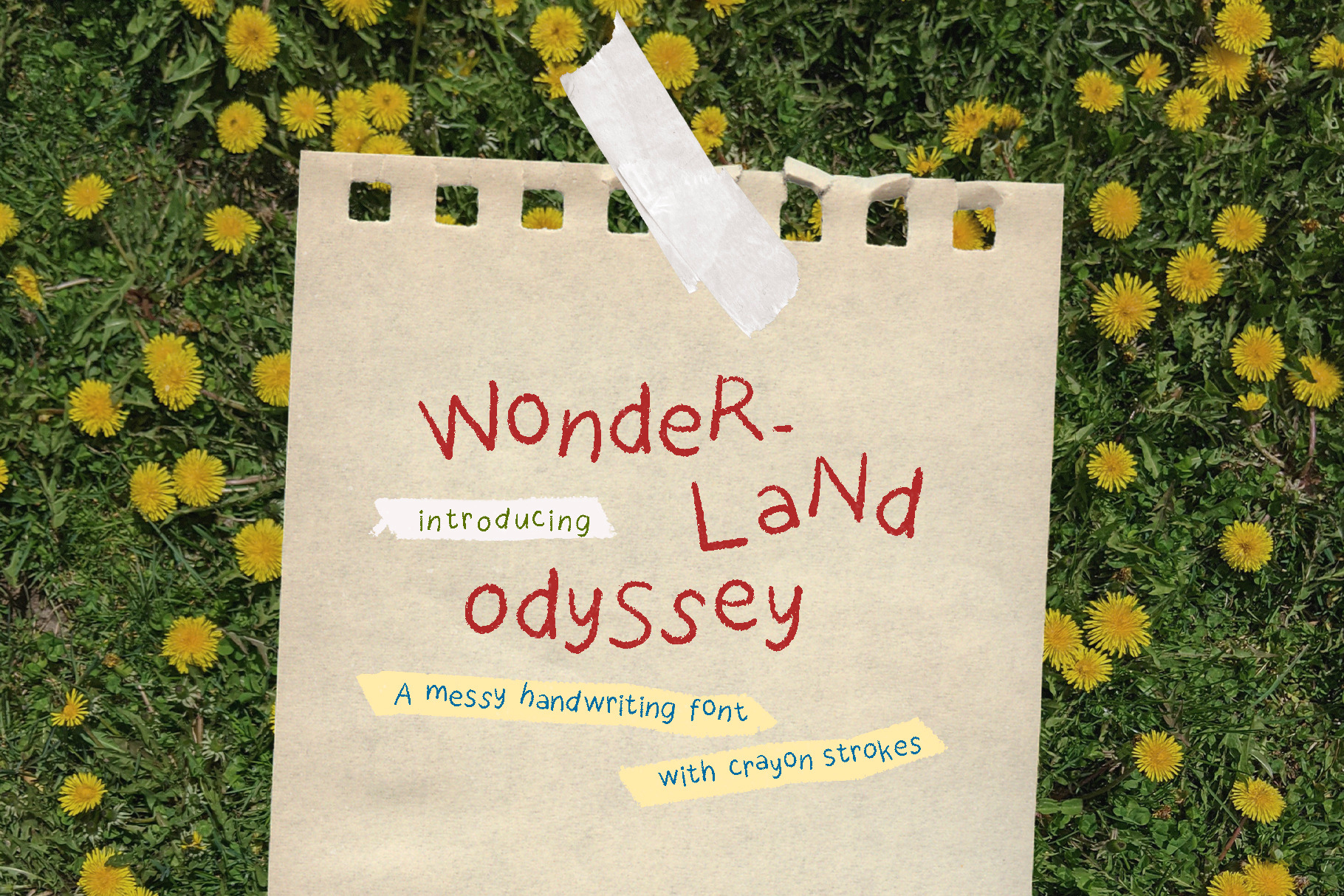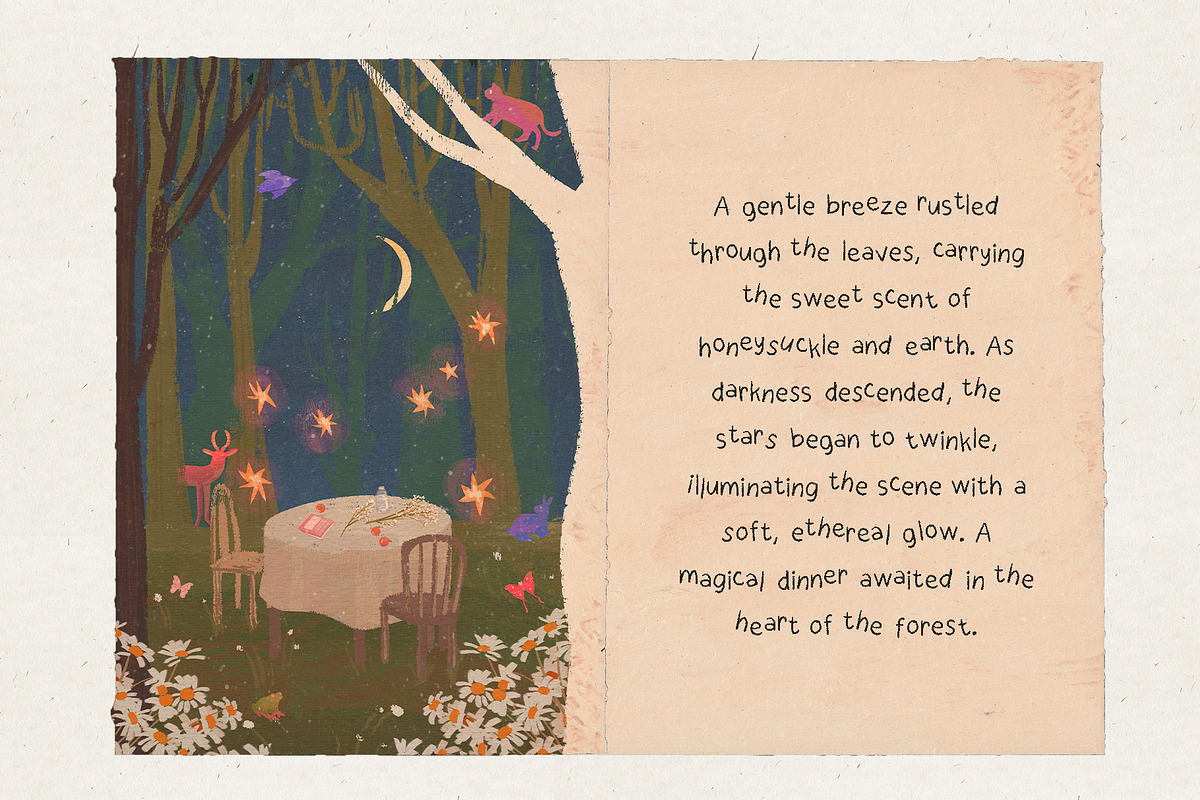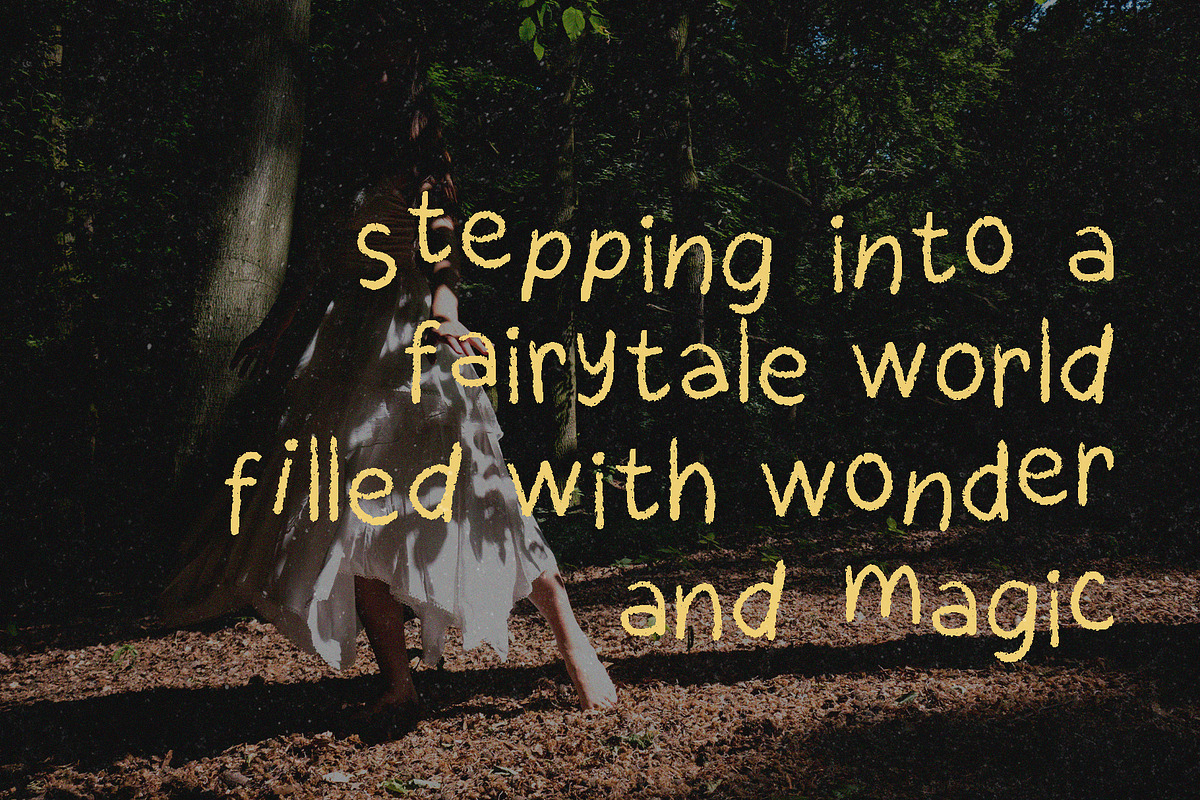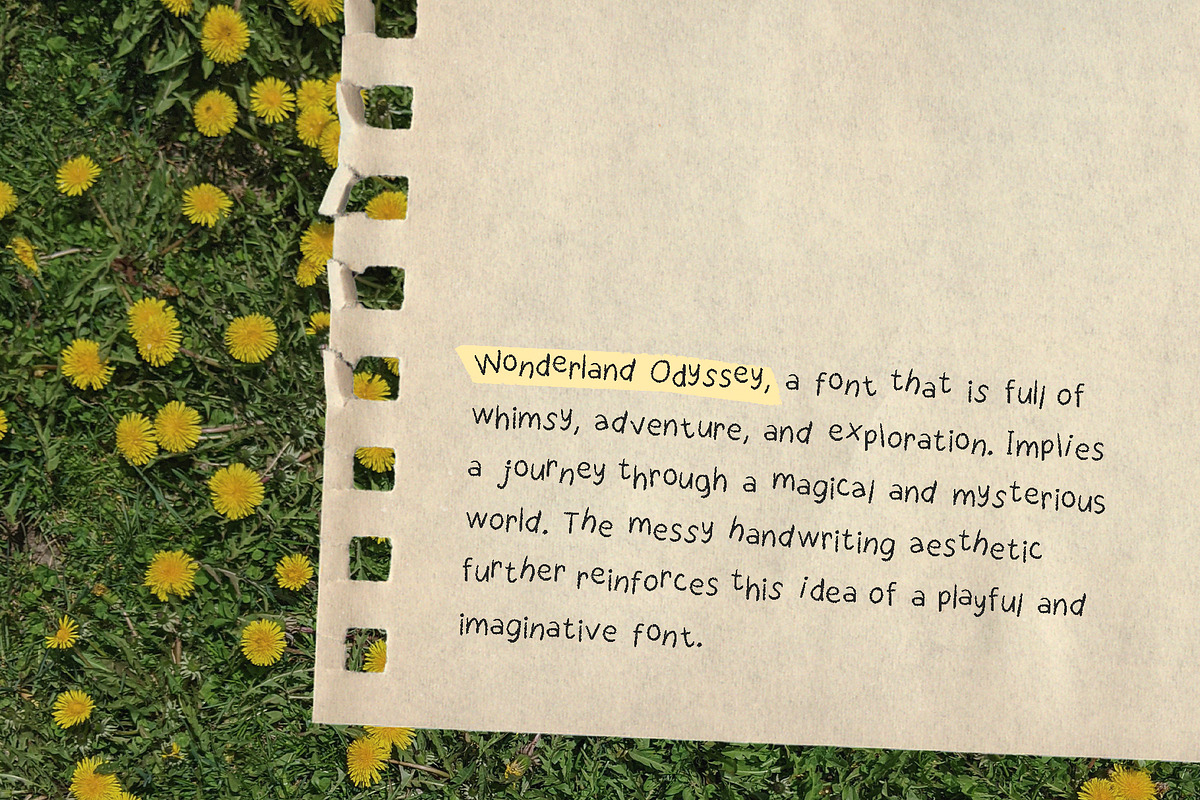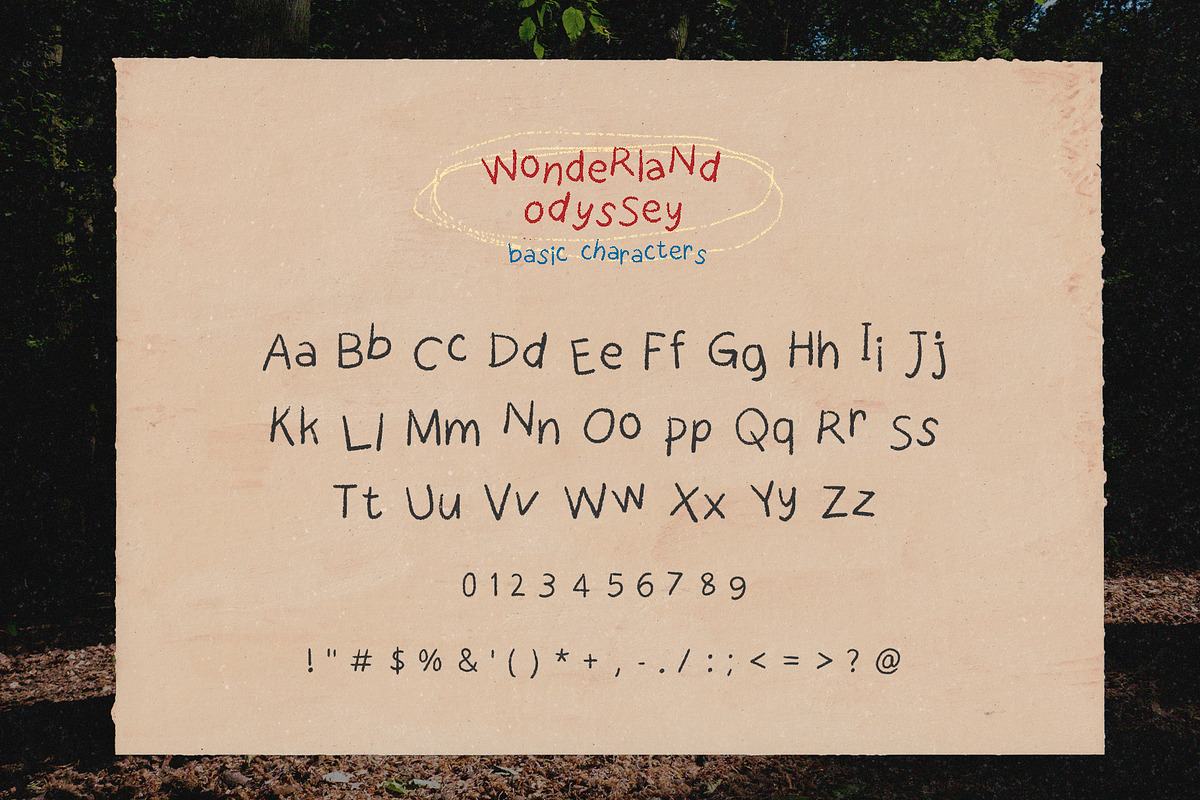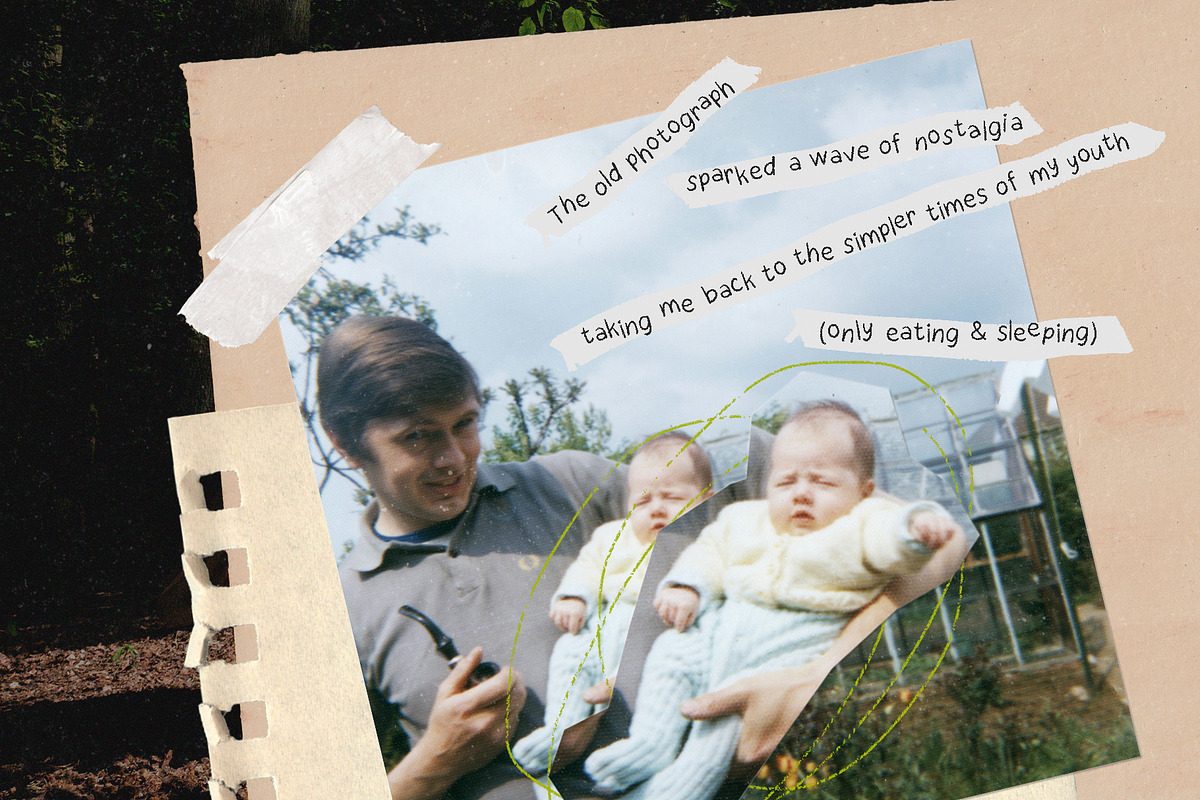
Wonderland Odyssey Crayon Messy Font
Wonderland Odyssey is a font that is full of whimsy, adventure, and exploration. Implies a journey through a magical and mysterious world. The messy handwriting with crayon strokes aesthetic further reinforces this idea of a playful and imaginative font.
Wonderland Odyssey Font is packed with everything you need, including uppercase and lowercase letters, numbers, and punctuation. Consists of 247 glyphs and alternate characters.